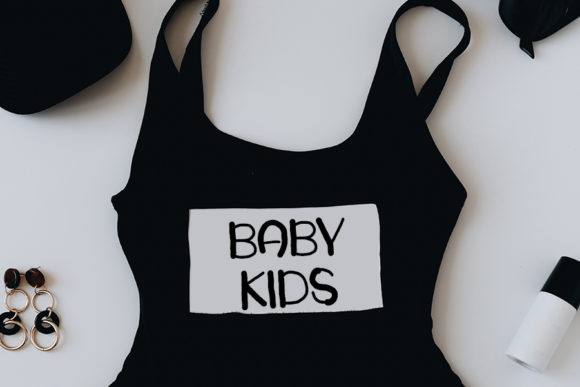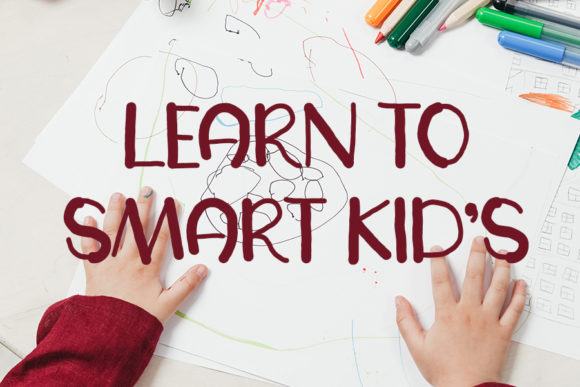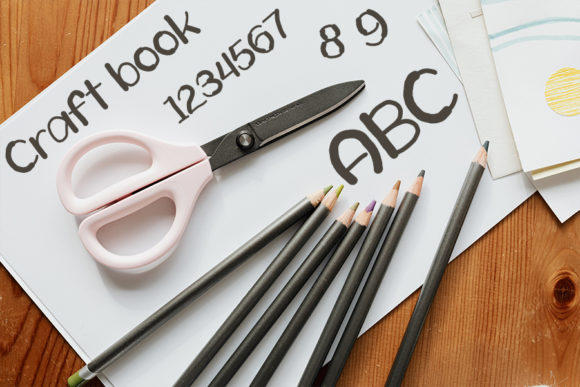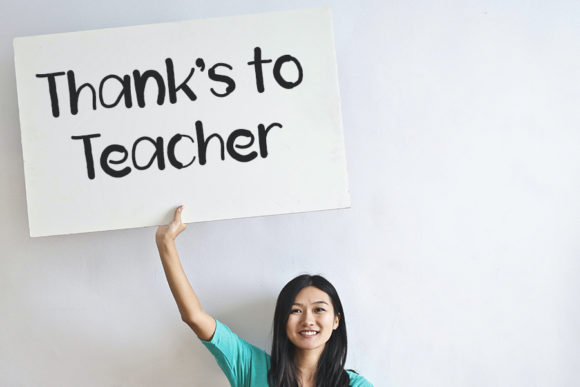
Baby Unicorn Font: The Magical Typeface for Your Designs
Are you looking for a font that will add a touch of whimsy and magic to your designs? Look no further than the Baby Unicorn Font! This adorable display font is perfect for designers and crafters who want to create eye-catching and engaging content. In this article, we’ll take a closer look at the Baby Unicorn Font, its features, and how you can use it to take your designs to the next level.
What is Baby Unicorn Font?
Baby Unicorn Font is a cute and friendly display font that is sure to capture the hearts of your audience. With its playful and charming design, this font is perfect for a wide range of projects, from children’s books and educational materials to branding and advertising. The font’s unique and quirky design makes it stand out from more traditional fonts, adding a touch of personality and whimsy to any design.
Key Features of Baby Unicorn Font
- Cute and Friendly Design: The Baby Unicorn Font features a playful and charming design that is sure to delight your audience.
- Display Font: This font is specifically designed as a display font, making it perfect for headlines, titles, and other attention-grabbing elements.
- Versatile: The Baby Unicorn Font can be used in a wide range of projects, from digital designs to print materials.
- Easily Readable: Despite its playful design, the Baby Unicorn Font is easy to read, making it perfect for use in body text as well as headlines.
How to Use Baby Unicorn Font in Your Designs
The Baby Unicorn Font is a versatile typeface that can be used in a wide range of design projects. Here are a few ideas to get you started:
- Children’s Books and Educational Materials: The Baby Unicorn Font is perfect for use in children’s books, educational materials, and other projects aimed at kids.
- Branding and Advertising: Add a touch of whimsy and personality to your brand with the Baby Unicorn Font. This font is perfect for use in logos, advertisements, and other marketing materials.
- Digital Designs: The Baby Unicorn Font can be used in a wide range of digital designs, from social media graphics to website headers.
- Print Materials: This font can also be used in print materials, such as flyers, brochures, and posters.
Tips for Using Baby Unicorn Font Effectively
Here are a few tips for using the Baby Unicorn Font effectively in your designs:
- Use it as a Headline Font: The Baby Unicorn Font is specifically designed as a display font, making it perfect for use as a headline font.
- Pair it with Other Fonts: The Baby Unicorn Font can be paired with other fonts to create a unique and visually appealing design.
- Experiment with Colors and Textures: The Baby Unicorn Font looks great in a wide range of colors and textures. Experiment with different combinations to find the one that works best for your design.
The Baby Unicorn Font is a magical typeface that is sure to add a touch of whimsy and personality to your designs. With its cute and friendly design, versatility, and ease of use, this font is perfect for designers and crafters who want to create eye-catching and engaging content. Whether you’re working on a children’s book, branding project, or digital design, the Baby Unicorn Font is sure to be a hit with your audience.